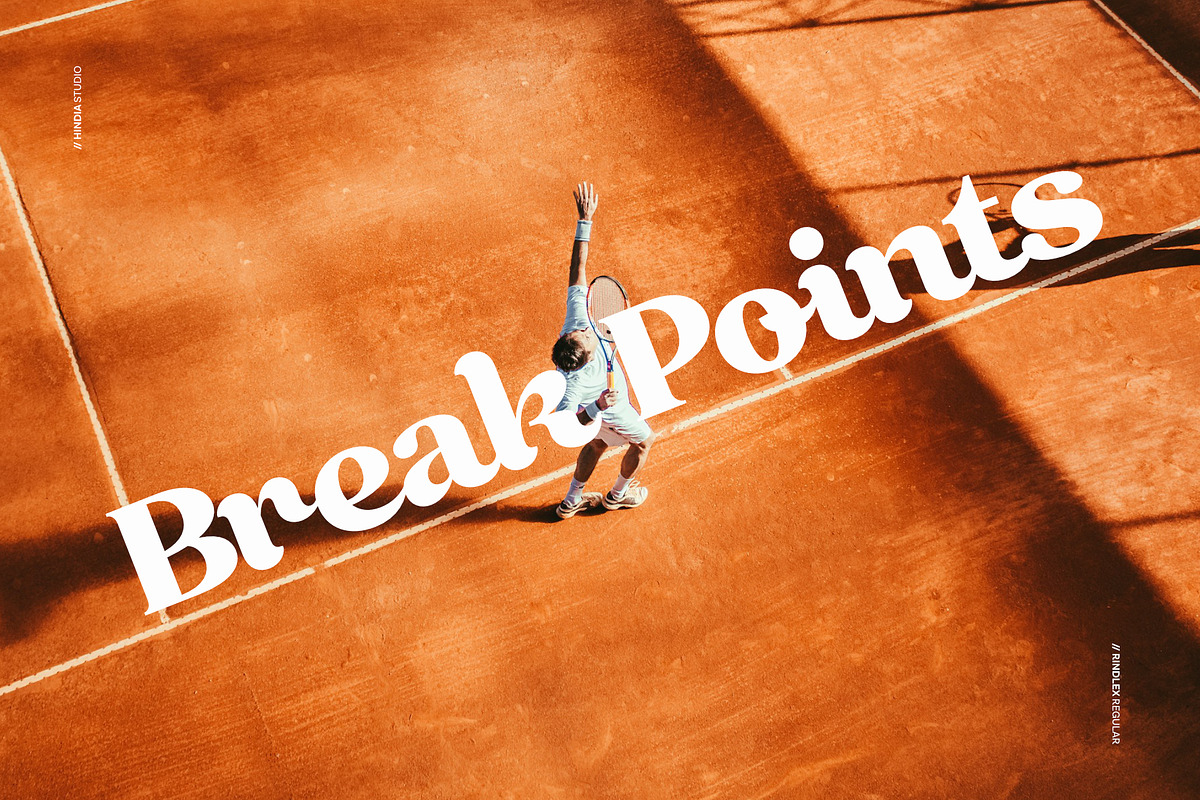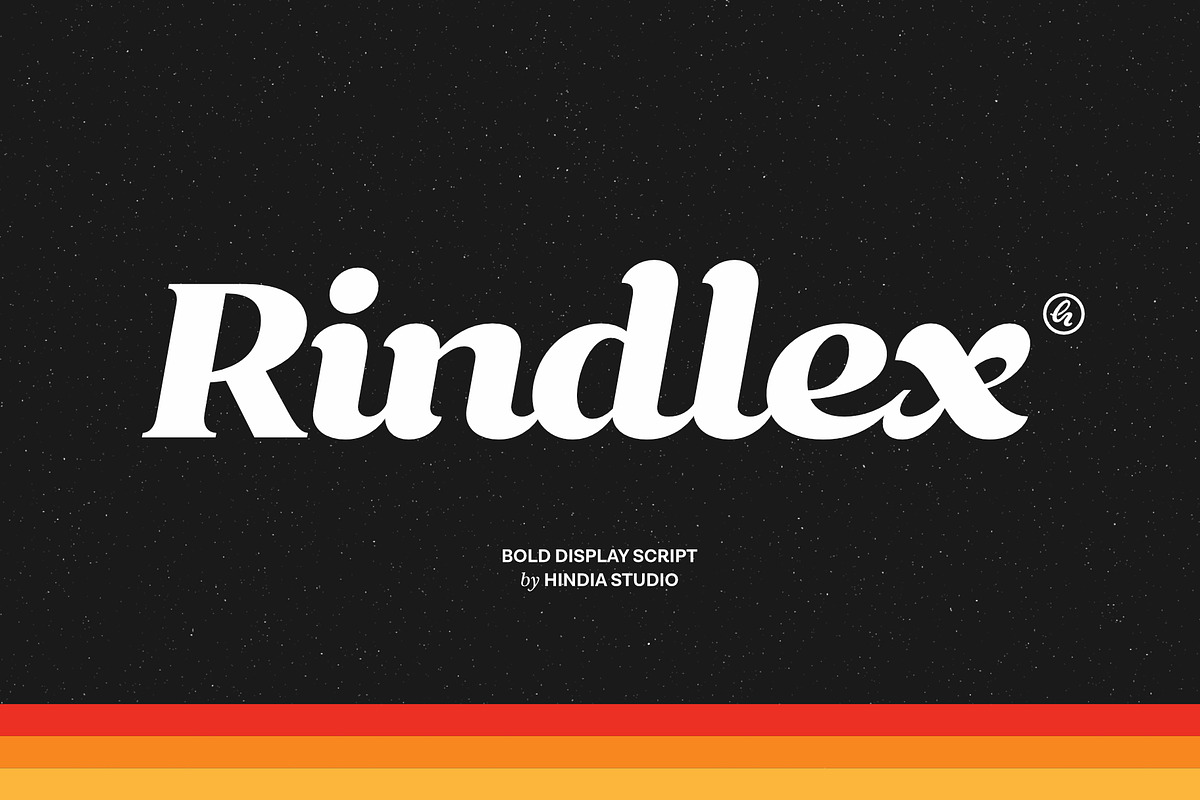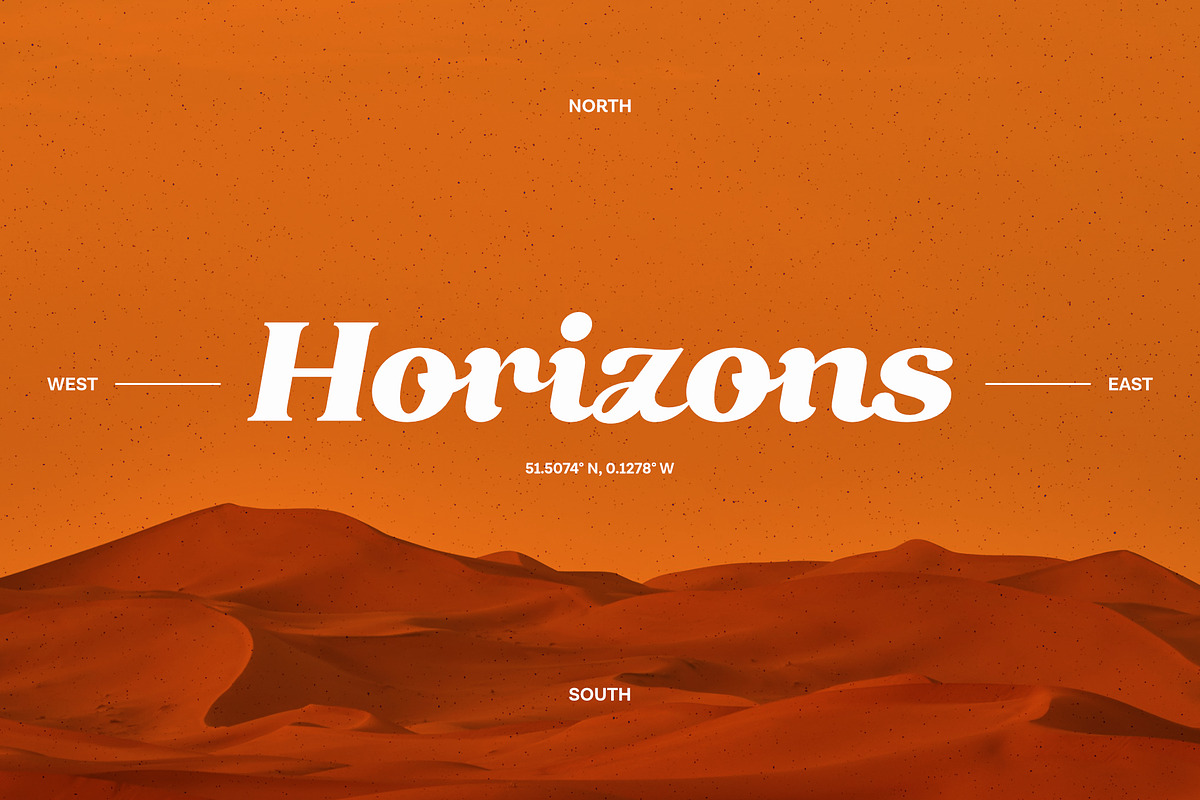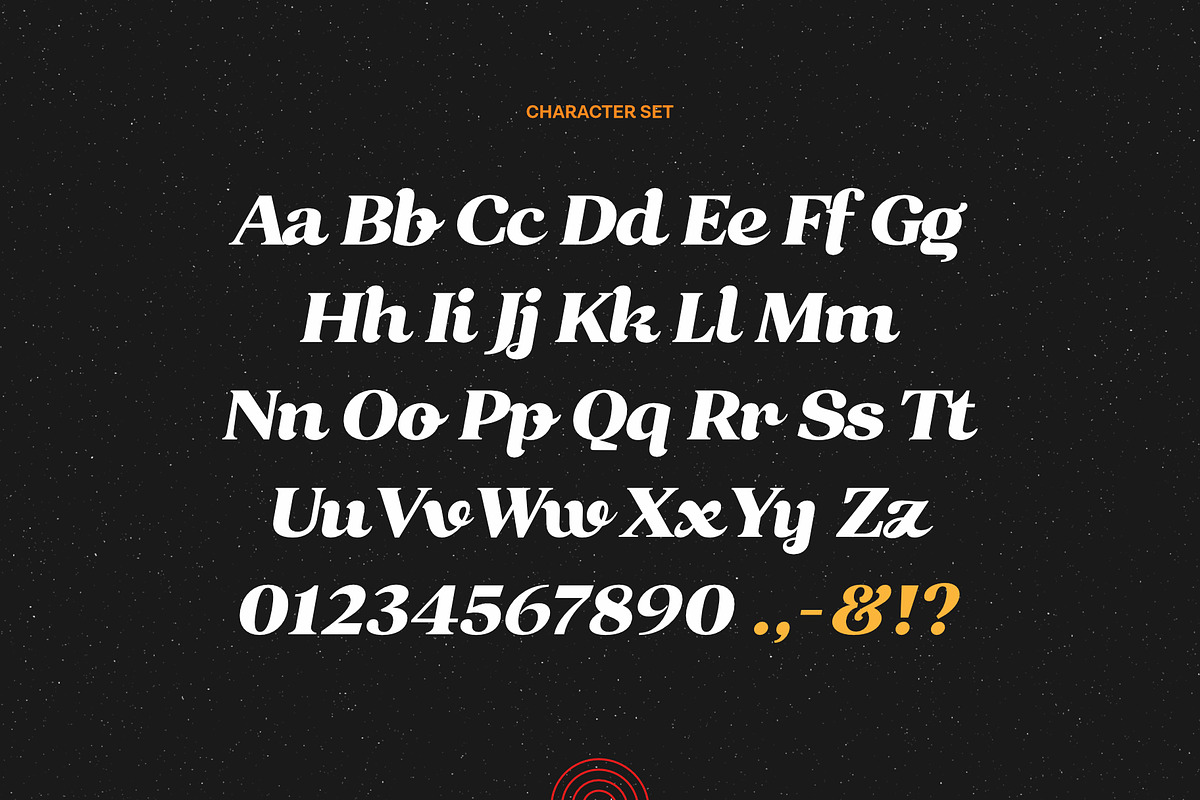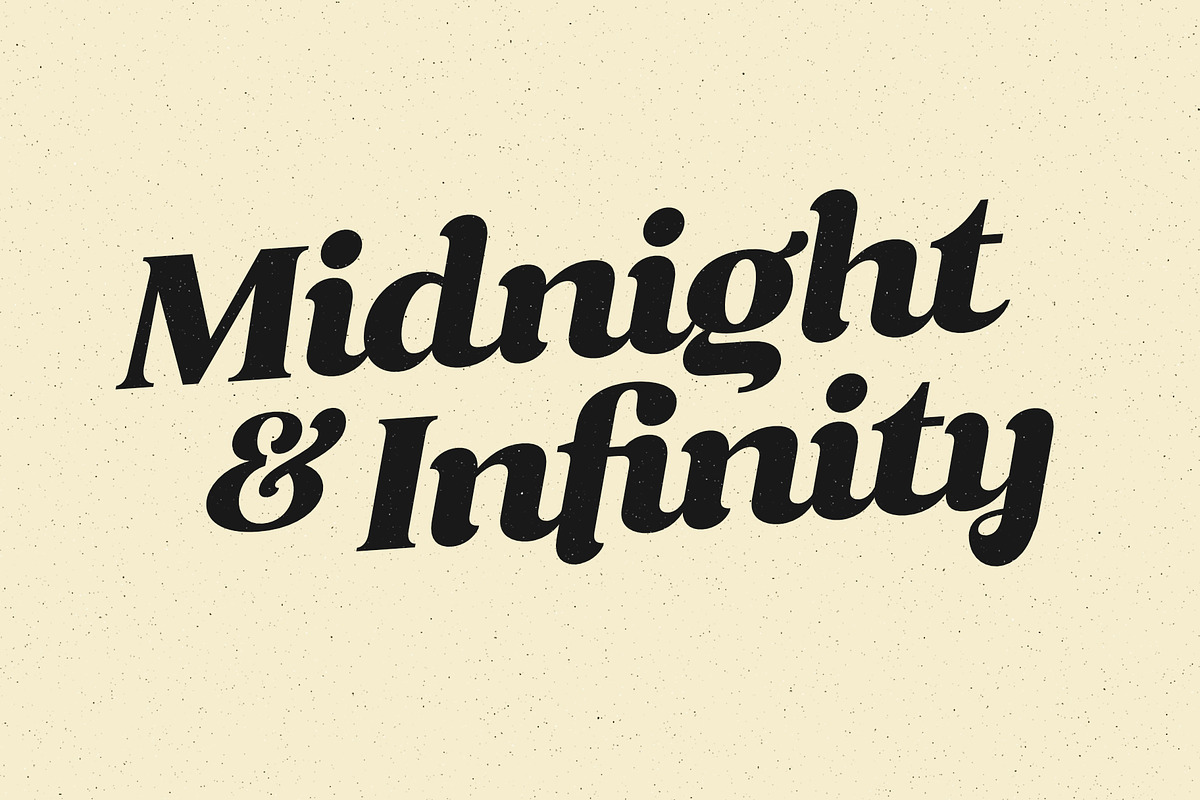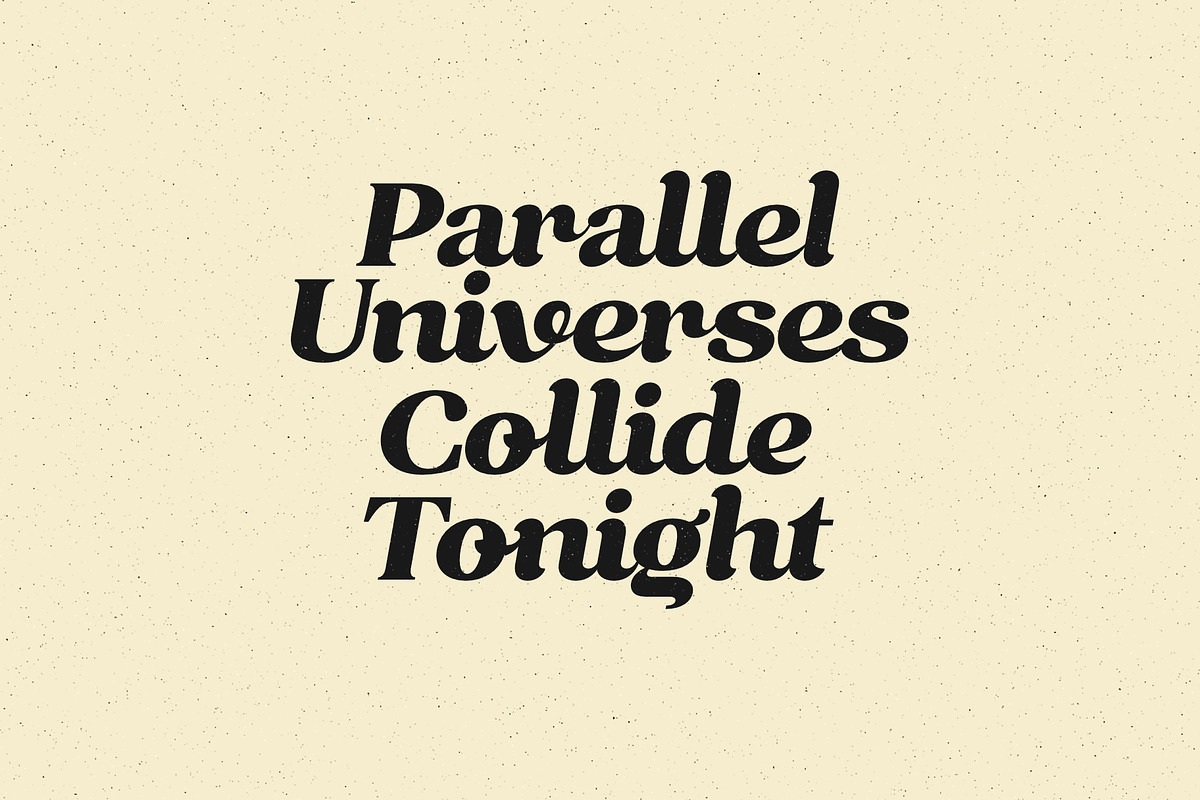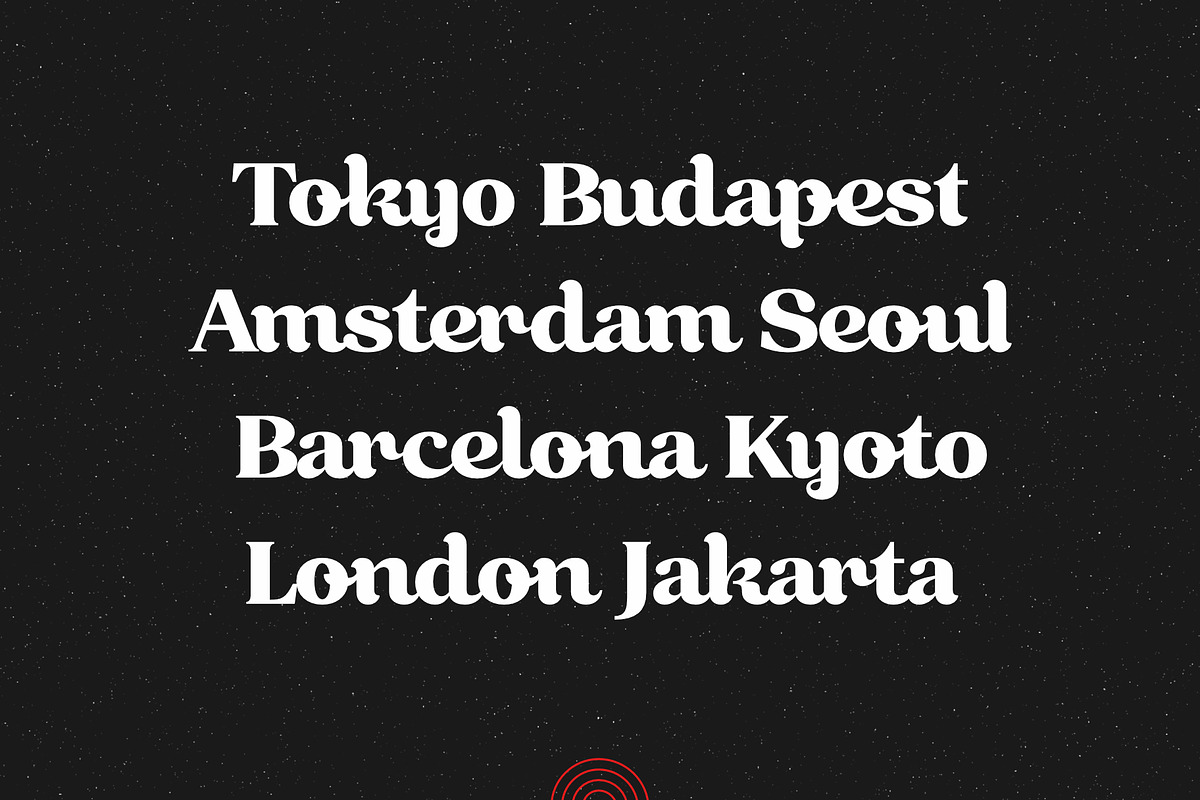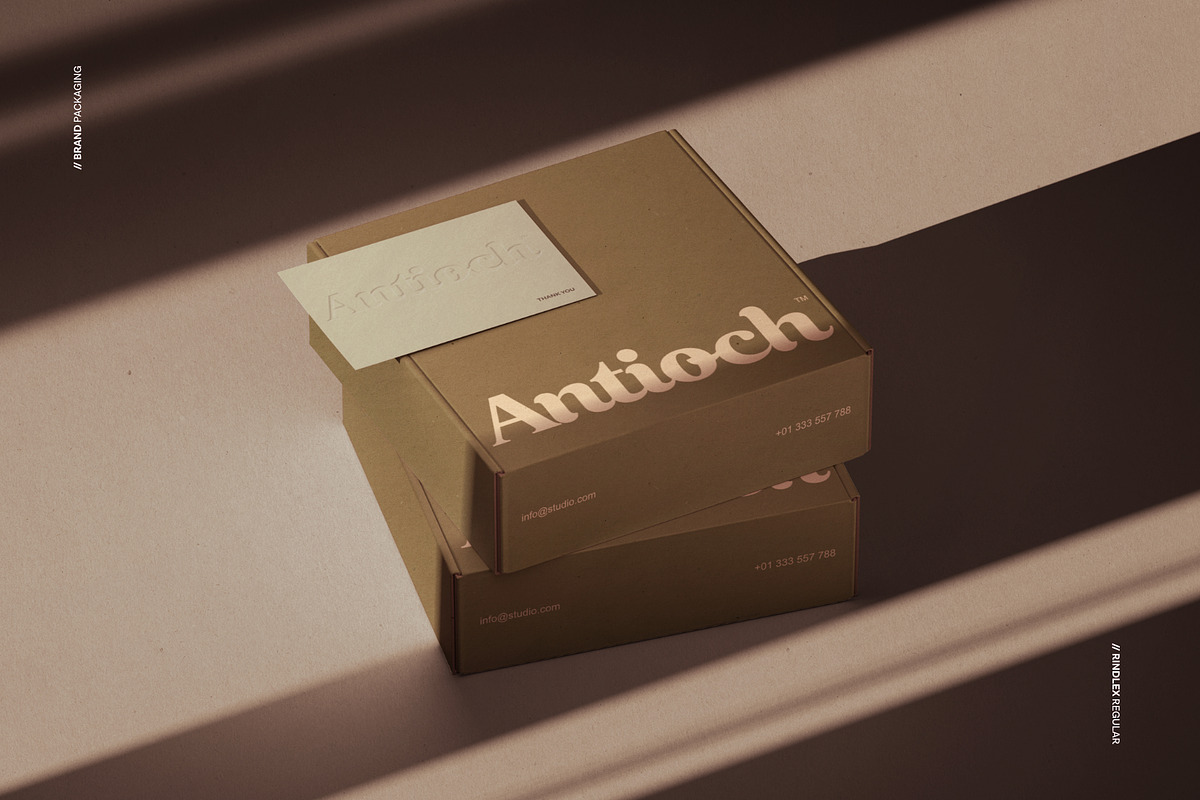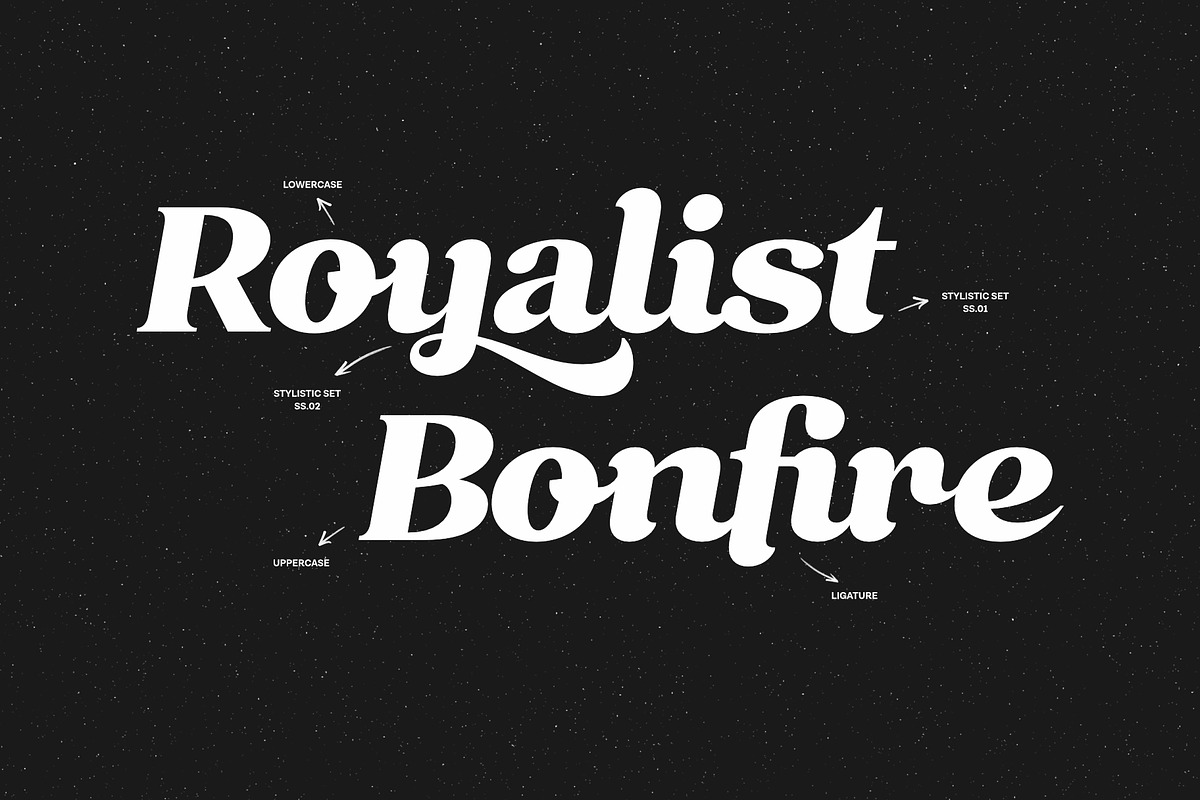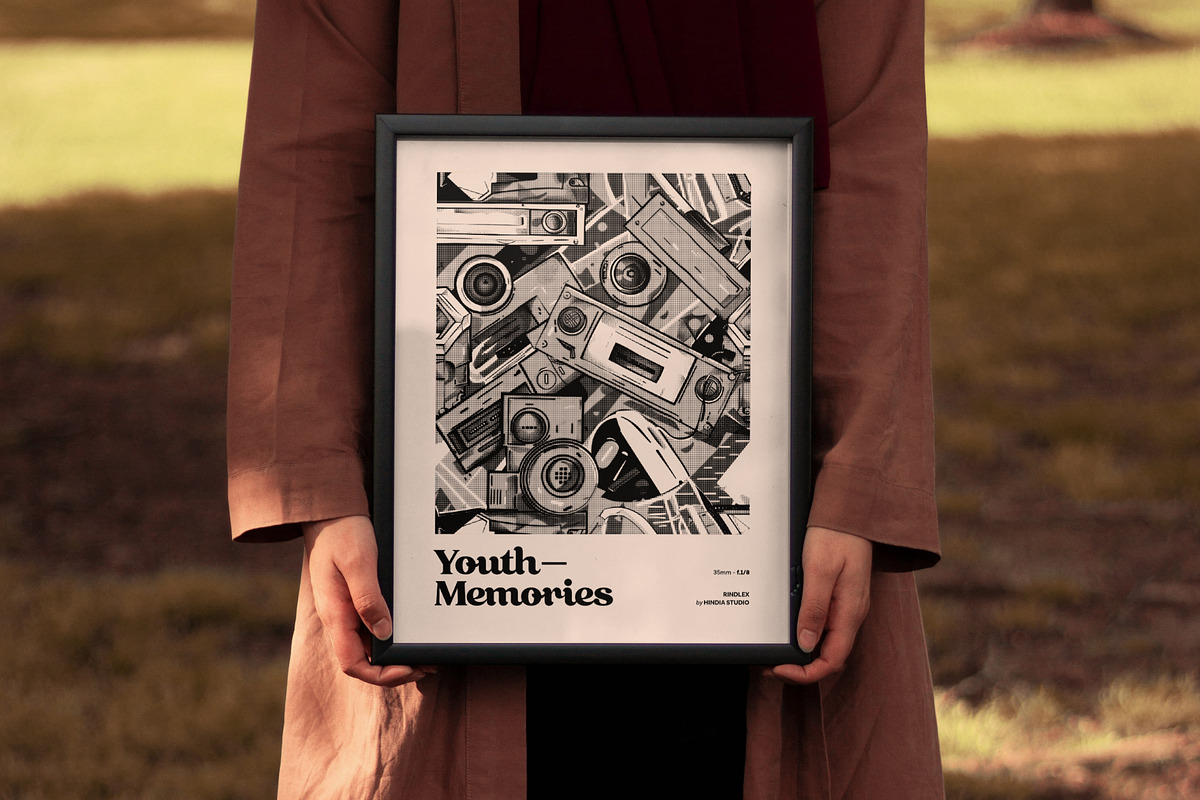
Rindlex - Retro Bold Display Script
Rindlex is a bold display script by Hindia Studio that masterfully blends a retro, vintage aesthetic with the continuous flow of hand-painted lettering. Characterized by thick, high-contrast strokes, a forward-leaning posture, and decorative details like sweeping curves and elegant swashes, the typeface carries a strong, energetic visual presence. Thanks to its nostalgic charm and excellent legibility across various color palettes and textured backgrounds, it proves highly versatile for prominent design projects, excelling in applications like striking poster titles, vintage-inspired branding, bold packaging, and dynamic sports graphics.
2 weights (Regular & Oblique)
Uppercase - Lowercase
Numerals - Punctuations - Symbols
Ligatures - Stylistic Sets/Alternates
Accents - Multilingual Characters - Adobe Latin 3